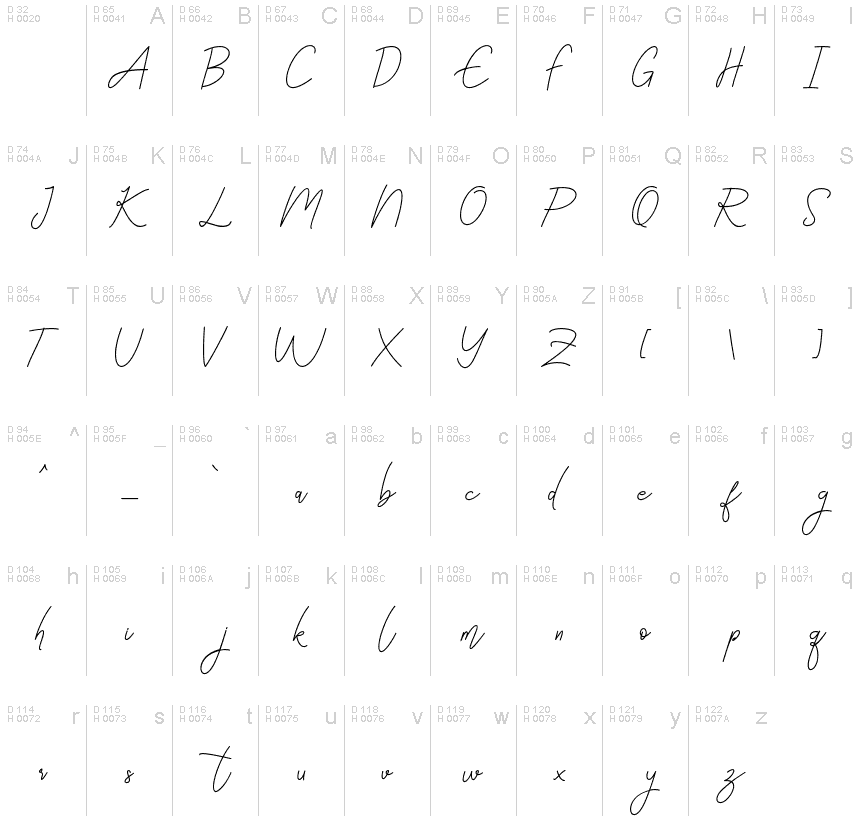
Christmas Today
Experience the joy of the holiday season with Christmas Today, a stunning handwritten font designed by Sarif Letter. Its delicate extra-light weight gives your text a graceful and festive touch that perfectly captures the spirit of Christmas. Whether creating greeting cards, invitations, or designing social media posts, Christmas Today is ideal for any project that requires a whimsical and playful font. Use it to add some creative flair to your holiday-themed projects, from posters and banners to gift tags and labels. This versatile typeface is sure to bring warmth and cheer to all your designs!